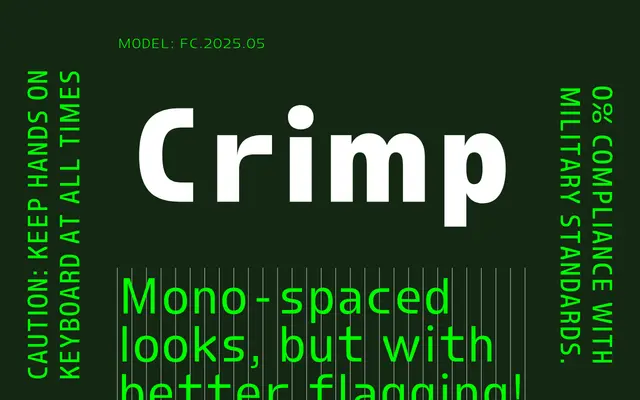
FC Crimp
Font Club Belgica · 2025
A monospaced revival inspired by W.A. Dwiggins' variable-width typewriter concept, introducing half-width and one-and-a-half-width glyphs alongside angled stubbed terminals for a mechanical, technical character.
Rather than applying uniform spacing to every glyph, FC Crimp revives a mid-century idea attributed to W.A. Dwiggins: assigning narrow glyphs like 'i' and 'l' a 50% width and wide ones like 'M' and 'w' a 150% width within an otherwise fixed-pitch system. Angled, stubbed terminals give the typeface a distinctly industrial quality that sits between a typewriter face and a technical drafting font. The family targets engineering, aerospace, gaming and outdoor branding applications, and includes Latin, Greek and Cyrillic script coverage.
Crimp is explicitly monospaced in concept, with all glyphs occupying a fixed width or proportional multiples thereof (50%, 150%); its angled stubbed terminals and technical origins place it firmly in the monospaced grotesque tradition.